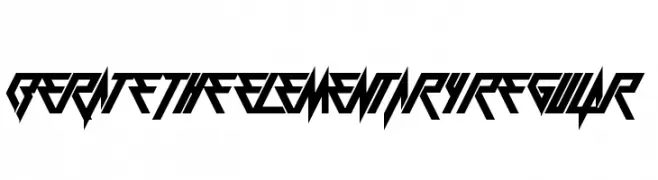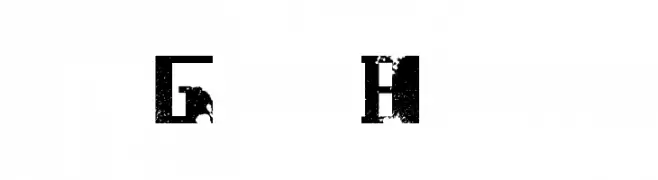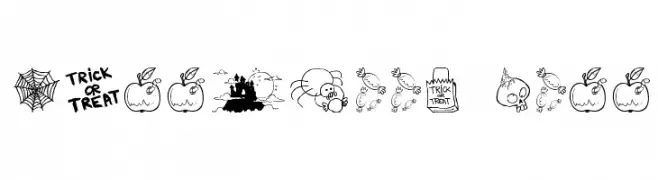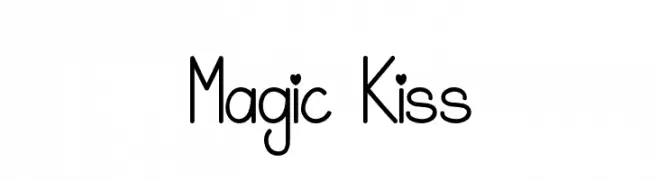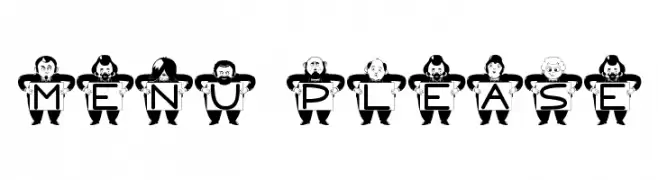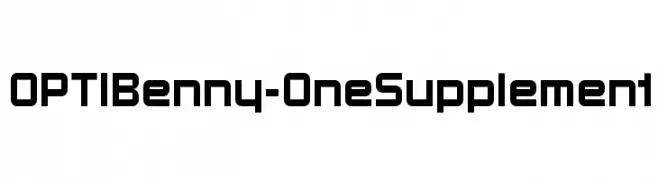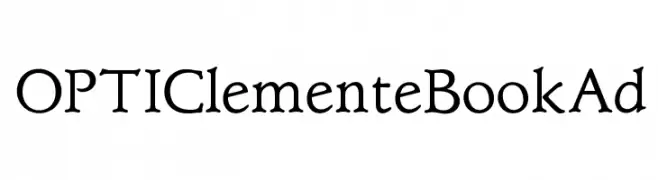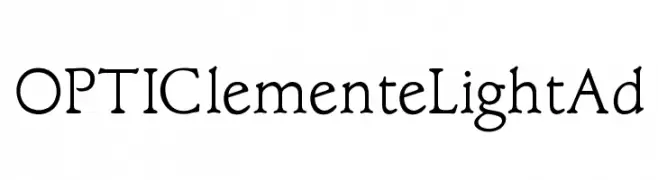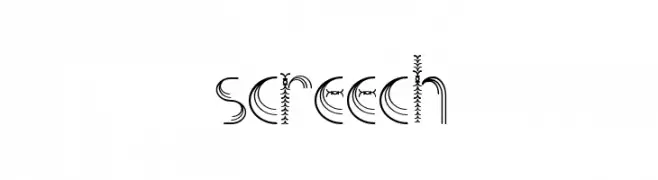
A whimsical Halloween-themed design with playful illustrations.
A playful, whimsical font with rounded, elongated letterforms and creative details.
A bold, distressed font with a rugged, graffiti-like style.
A bold, angular font with a futuristic and geometric design.
A whimsical, cartoon-like font with characters integrated into playful figures.
A classic serif font with elegant strokes and balanced proportions.
A classic serif font with elegant, sharp serifs and a timeless design.
A bold, geometric font with a modern and digital aesthetic.